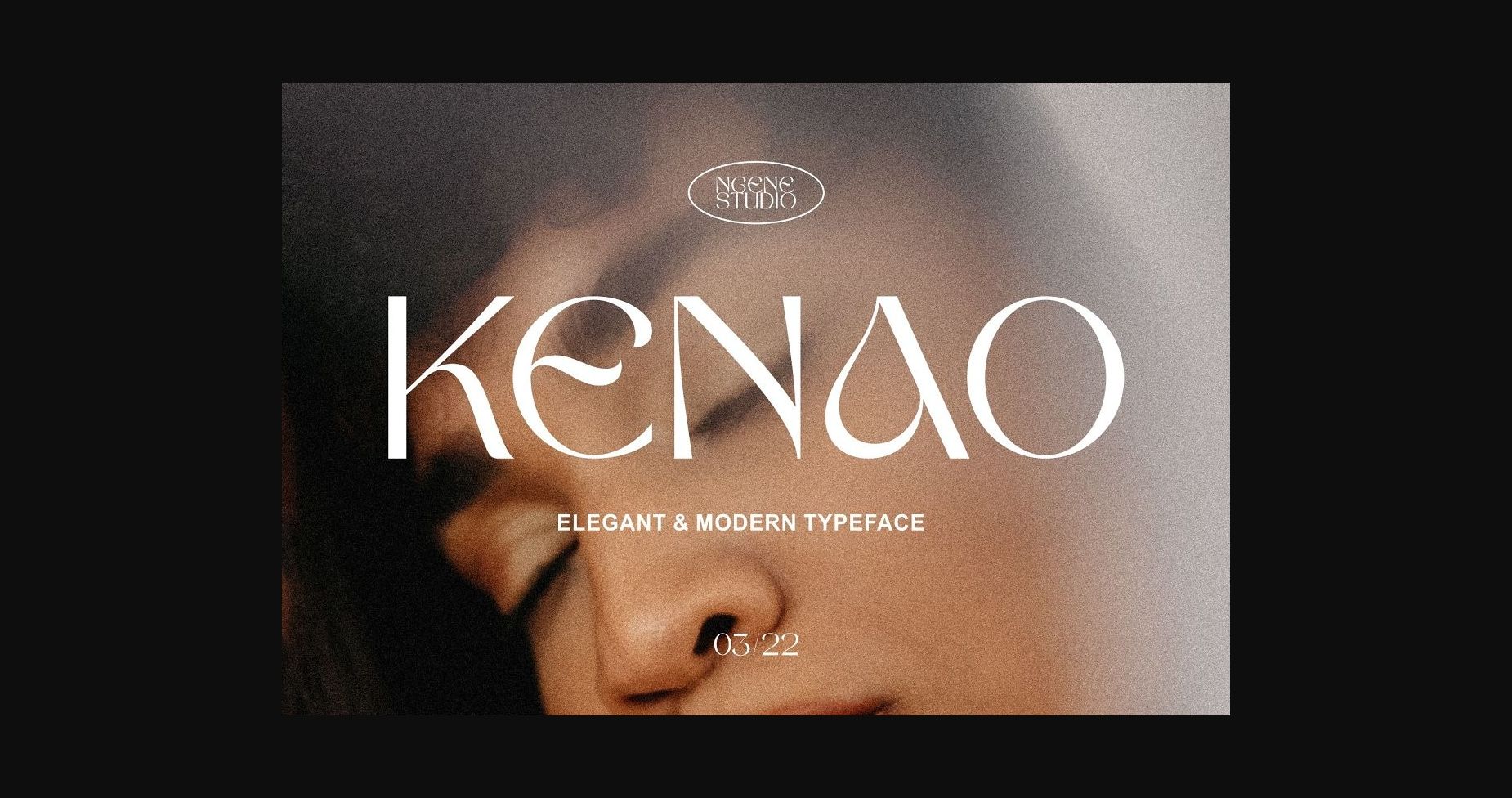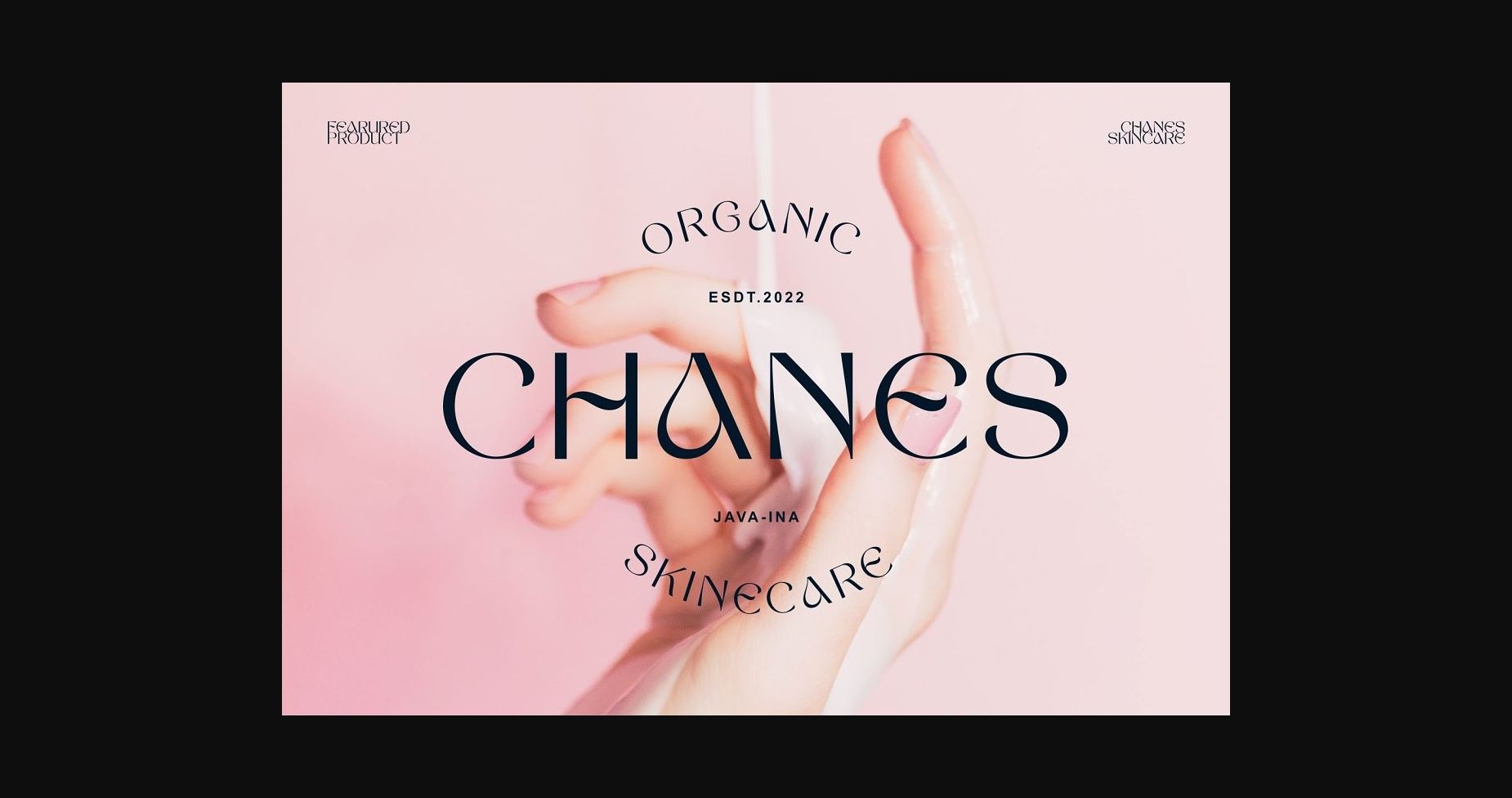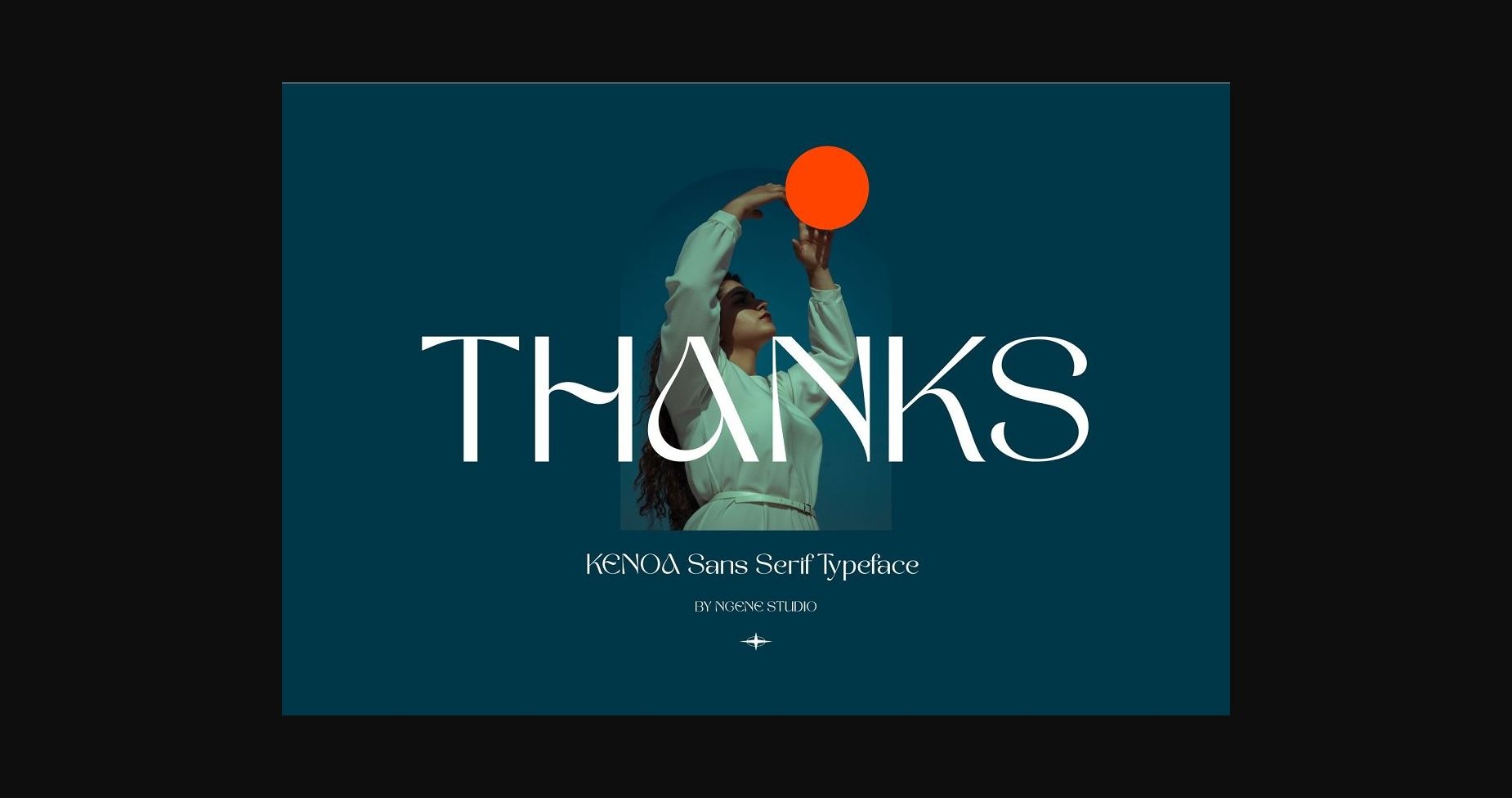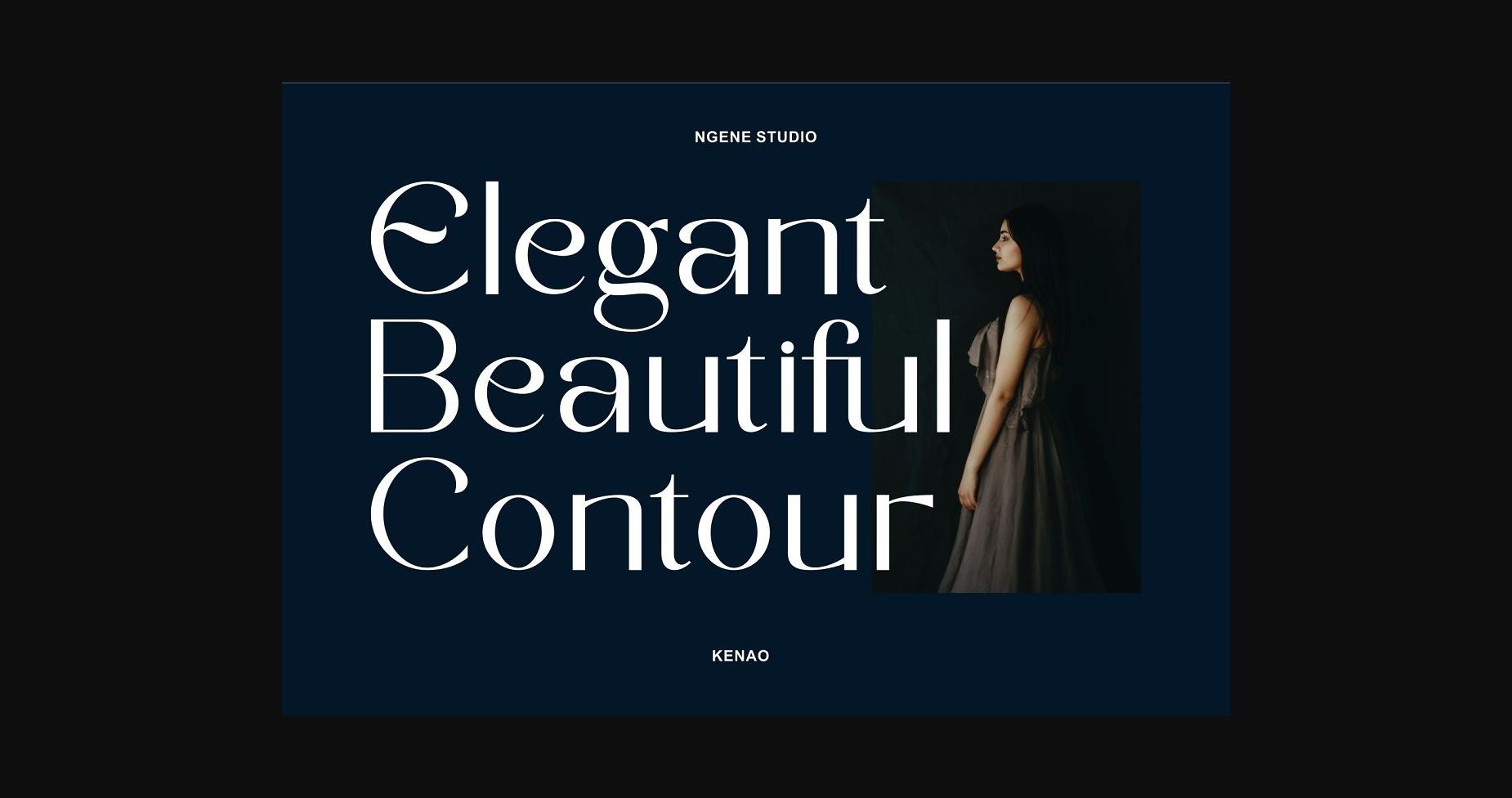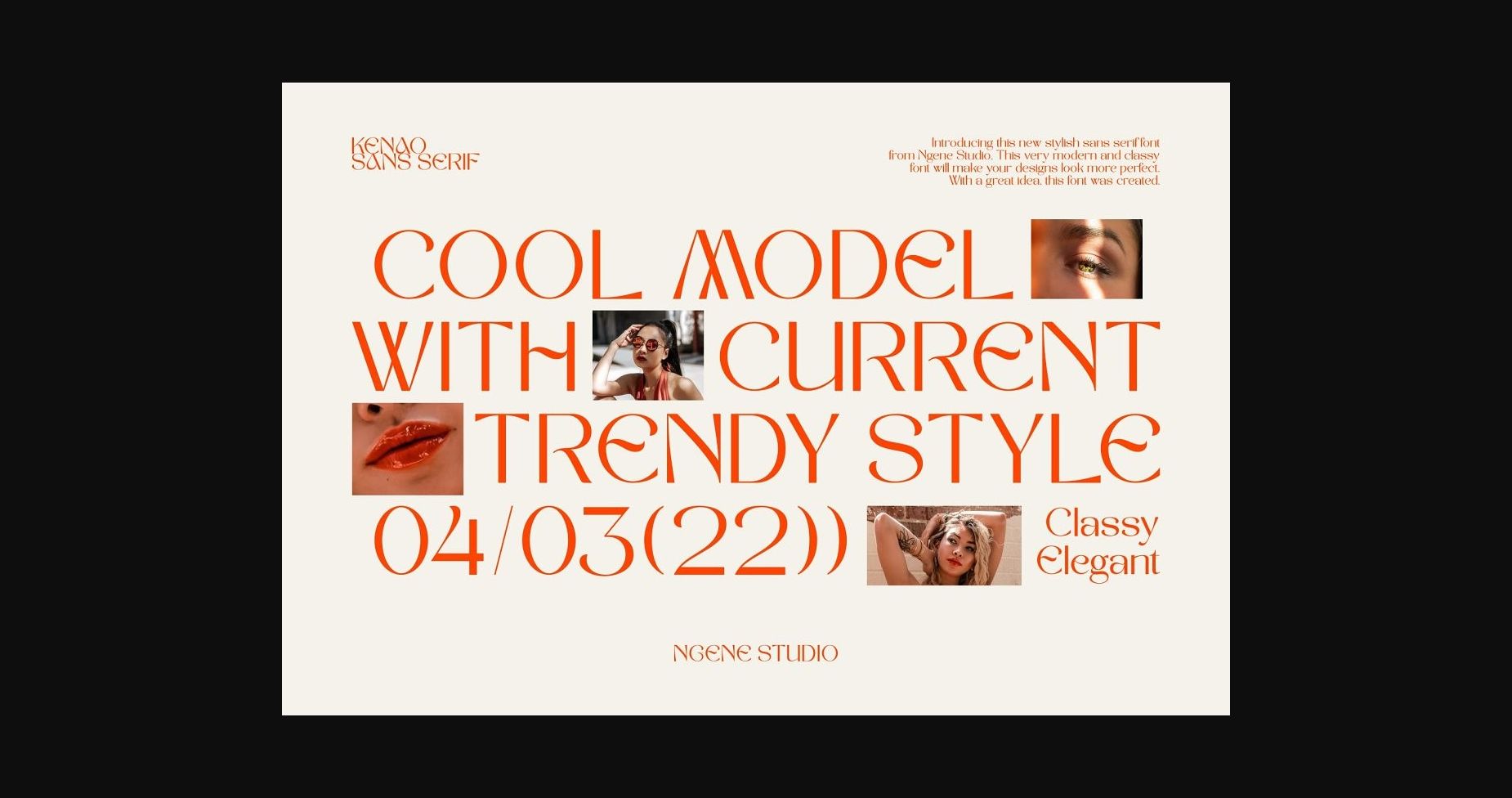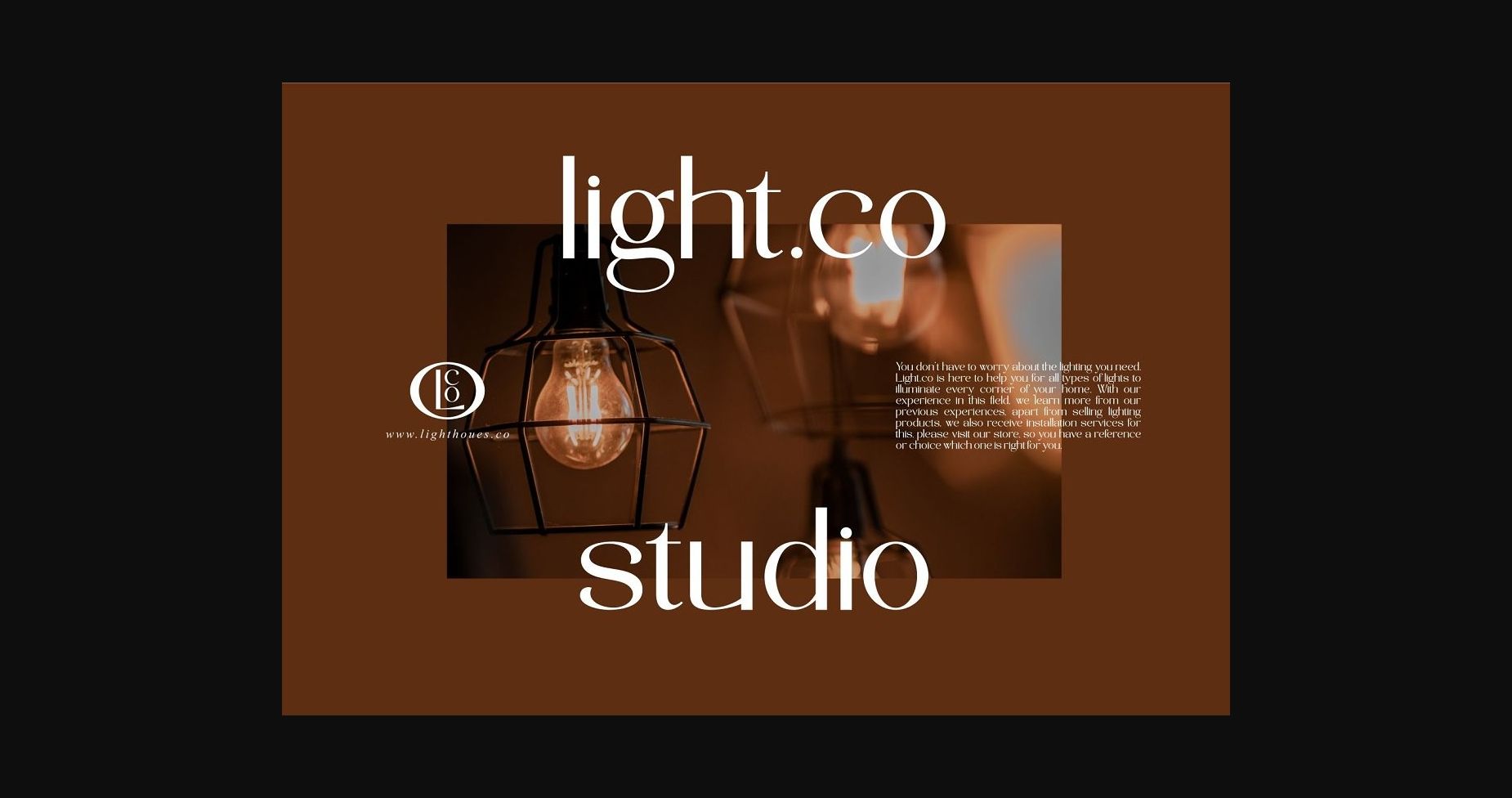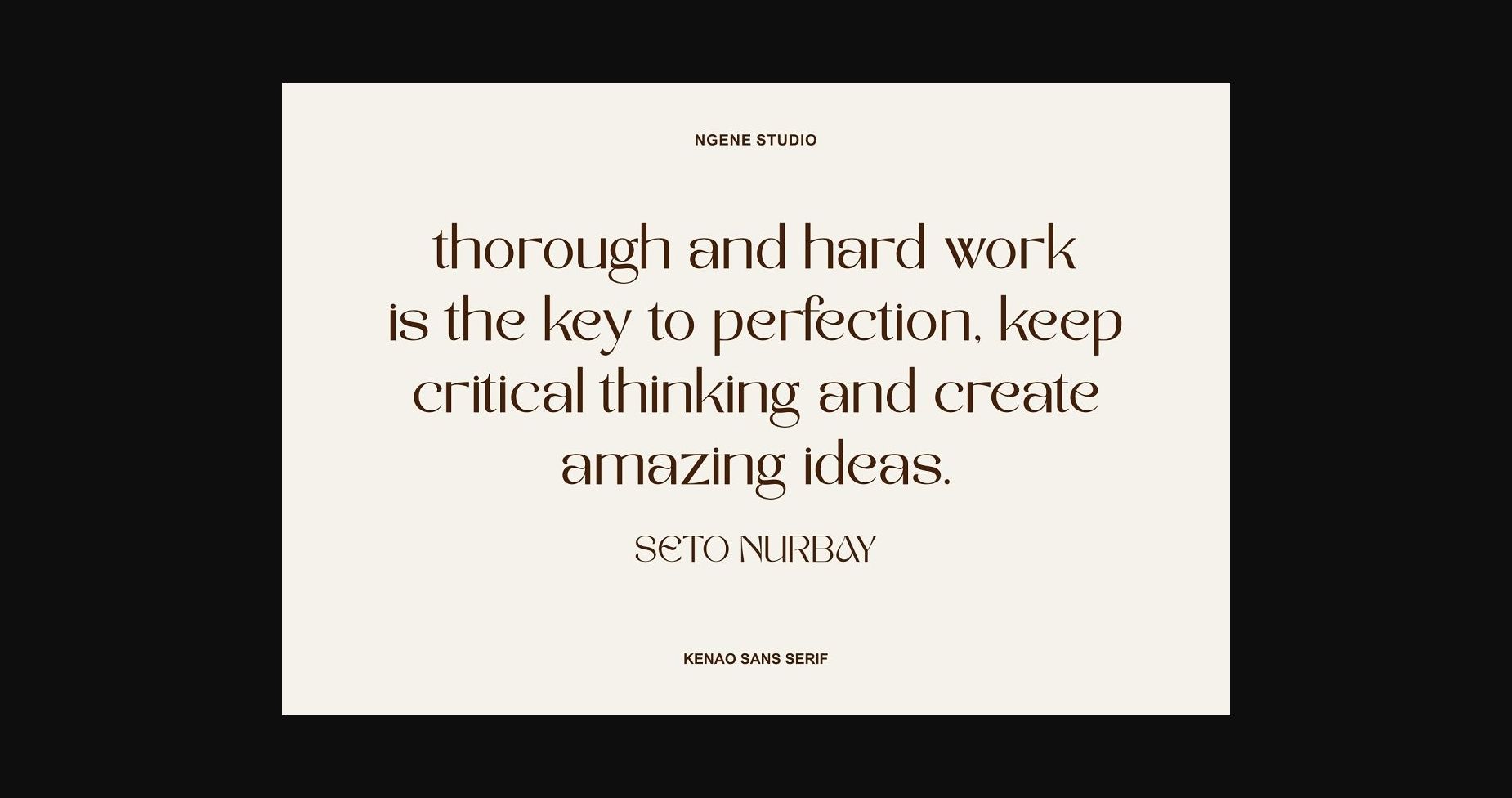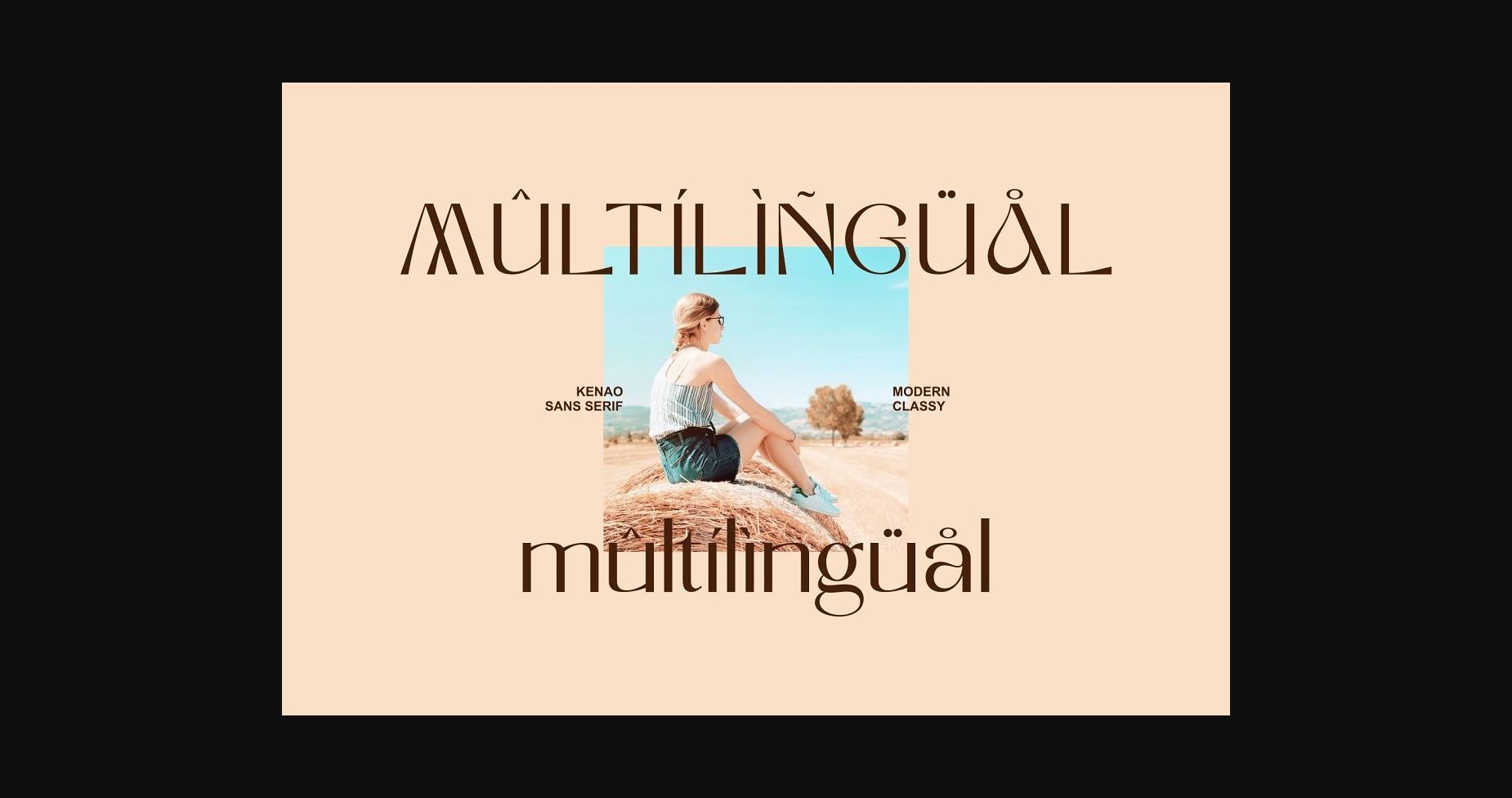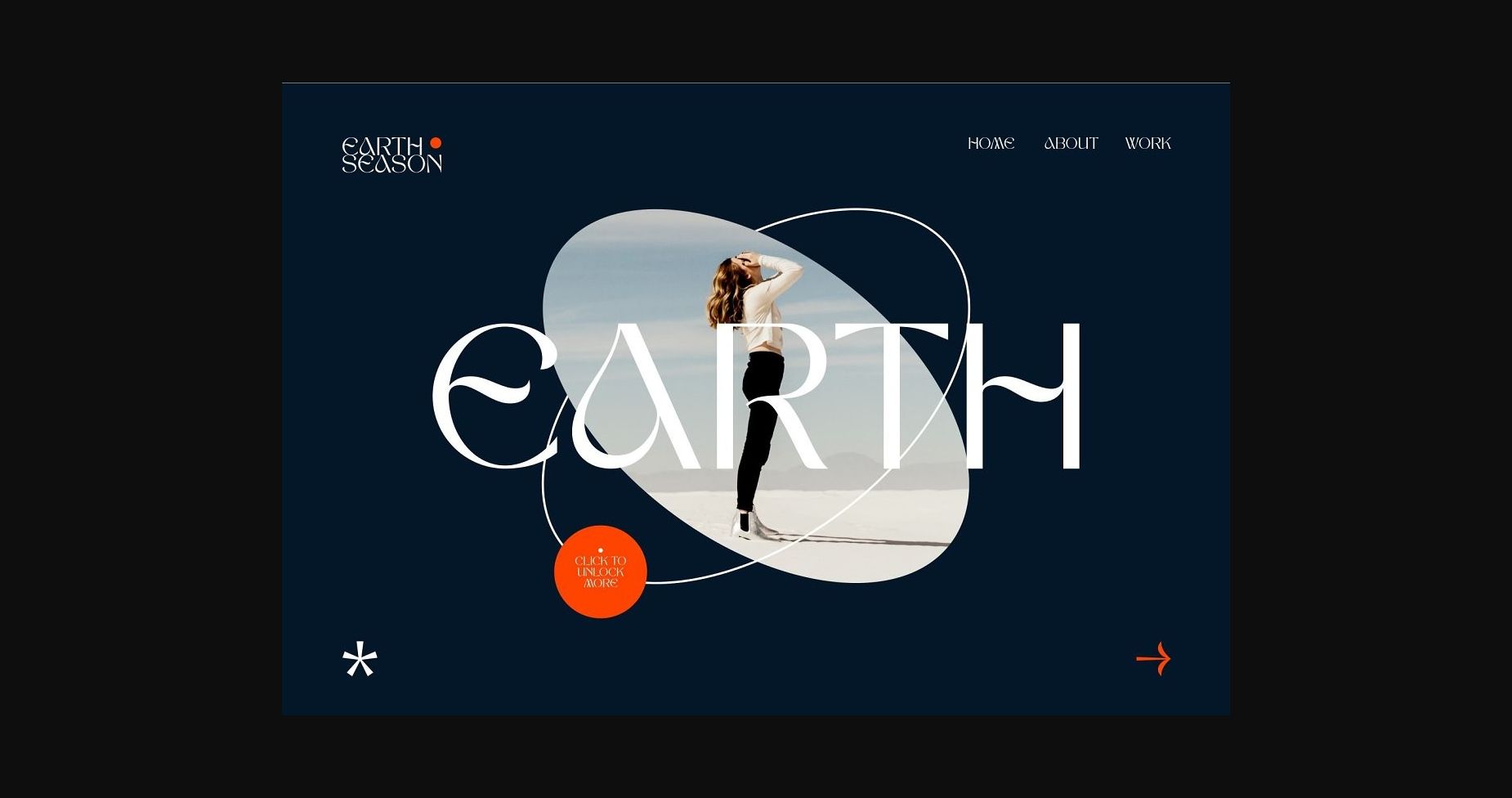
HomeSans Serif FontsKenao Font Sans Serif Fonts Kenao Font FacebookXPinterestWhatsApp 1 of 9 ... Kenao Font Poster 2... Kenao Font Poster 5... Kenao Font Poster 6... Kenao Font Poster 7... Kenao Font Poster 8... Kenao Font Poster 9... Kenao Font Poster 10... Kenao Font Poster 11... About Kenao Font Kenao is a stylish and elegant sans serif font with a feminine energy. Chic and charming, this font is suitable for a wide range of trendy designs. DOWNLOAD NOW People also explored Zalendia Font Power Garden Font Heart Keeper Font Rootzin Font Welroseltone Font Gaston Font Thenicle Extra Bold Font Eastern Harrogate Font Edmonde Font 2516 0 TagsKenaoKenao Font Previous articleEarly FontNext articleGyroscope Font LEAVE A REPLY Cancel reply Comment: Please enter your comment! Name:* Please enter your name here Email:* You have entered an incorrect email address! Please enter your email address here Website: Save my name, email, and website in this browser for the next time I comment. Personal Use Free Engine Personal Use Free Read more about this font Rocketto Personal Use Free Read more about this font Cheque Personal Use Free Read more about this font Cataclysmo Personal Use Free Read more about this font BLOG The 10 Best Handwriting Fonts to Add Personality to Your Designs 10 of the Best Handwriting Fonts for Adding Personality to Your Designs There will undoubtedly be no other better choice than handwriting fonts to give... Using Fonts in Digital Marketing: Tips to Strengthen Your Brand Identity Transform Your Website: Elevate Your Typography with 7 Best Web Font Generators Free Fonts Risk: Why Free Fonts Can Be Dangerous for Designers